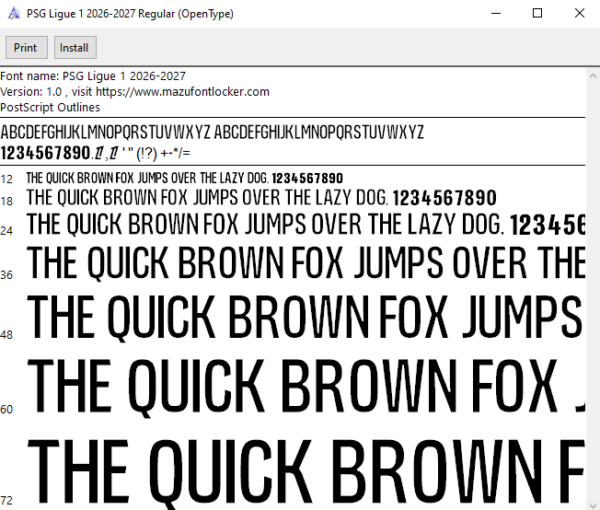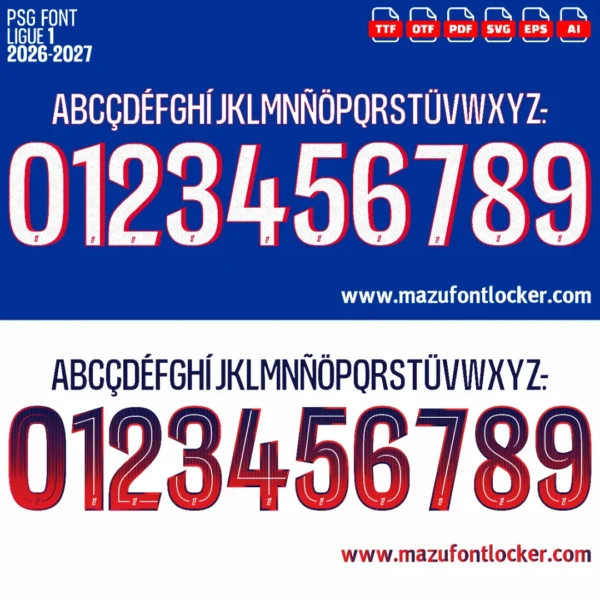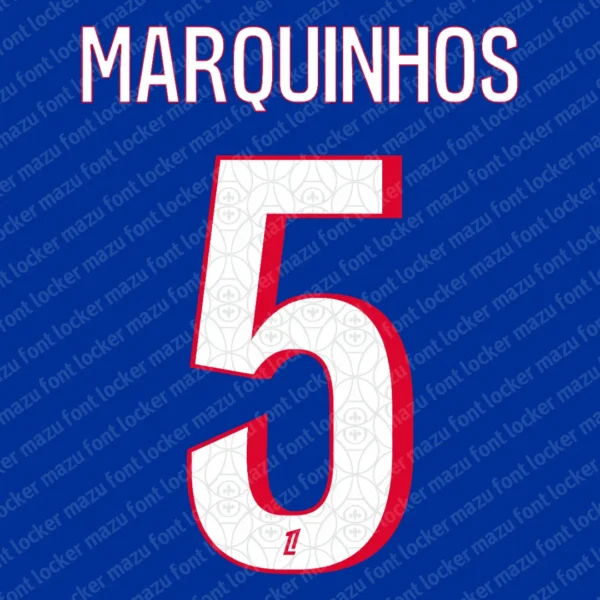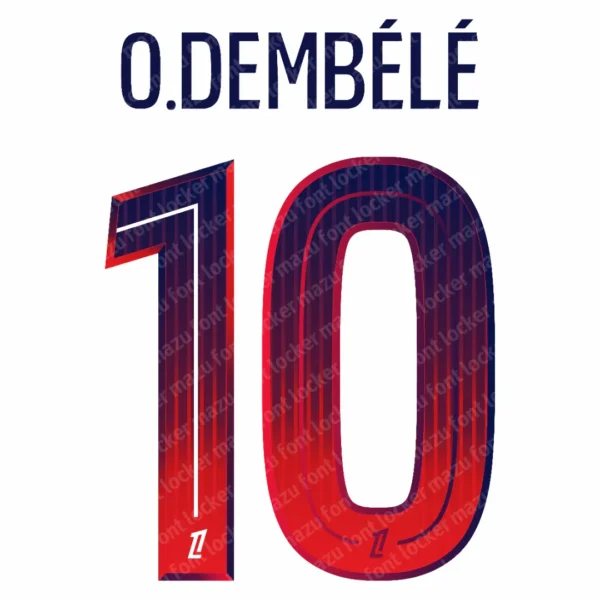
PSG Ligue 1 2026-2027 Font Vector – Stunning Parisian Champions Masterpiece
This font captures the commanding, iconic, fearless, and ultra-premium lettering that perfectly reflects the club’s legendary Parisian identity, championship-winning ambition, and modern football excellence, delivering unmatched prestige, explosive energy, luxurious sophistication, and authentic Ligue 1 style for premium jersey mockups, football designs, elite sports visuals, passionate fan creations, and professional branding projects.
PSG Ligue 1 2026-2027 Font Vector – Stunning Parisian Legacy Typeface
The PSG Ligue 1 2026-2027 Font Vector is a premium typeface that accurately recreates the official Ligue 1 match lettering worn by Paris Saint-Germain during the 2026-2027 season. This high-quality vector font kit captures the sleek, modern, and instantly recognizable typography used by France’s most successful football club, perfectly complementing PSG’s iconic blue, red, and white identity.
Designed for professional designers, football enthusiasts, and passionate PSG supporters, the PSG Ligue 1 2026-2027 Font Vector delivers exceptional authenticity for creating realistic jersey mockups, football merchandise, social media graphics, match posters, and custom fan artwork. It perfectly reflects the contemporary visual identity that has become synonymous with Parisian football excellence.
Why Choose PSG Ligue 1 2026-2027 Font Vector
This font stands out thanks to its precise vector construction and authentic club styling. Every character has been carefully recreated to match the official Ligue 1 shirt lettering used throughout the 2026-2027 season. Whether you’re producing realistic kit templates or creating eye-catching football content, the PSG Ligue 1 2026-2027 Font Vector delivers a genuine professional appearance.
The lettering featured in the PSG Ligue 1 2026-2027 Font Vector combines elegant geometric lines with bold contemporary proportions. The result is a highly readable and premium design that reflects the ambition, prestige, and attacking philosophy associated with Paris Saint-Germain.
The numerals feature balanced curves, sharp edges, and excellent spacing for maximum readability. Built entirely as scalable vectors, every number remains crisp for jersey customization, digital graphics, posters, and large-format printing.
• Includes authentic Ligue 1 sleeve sponsor and crest glyph placement beneath player numbers